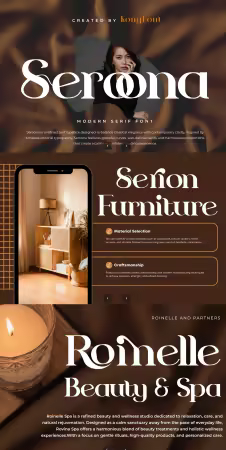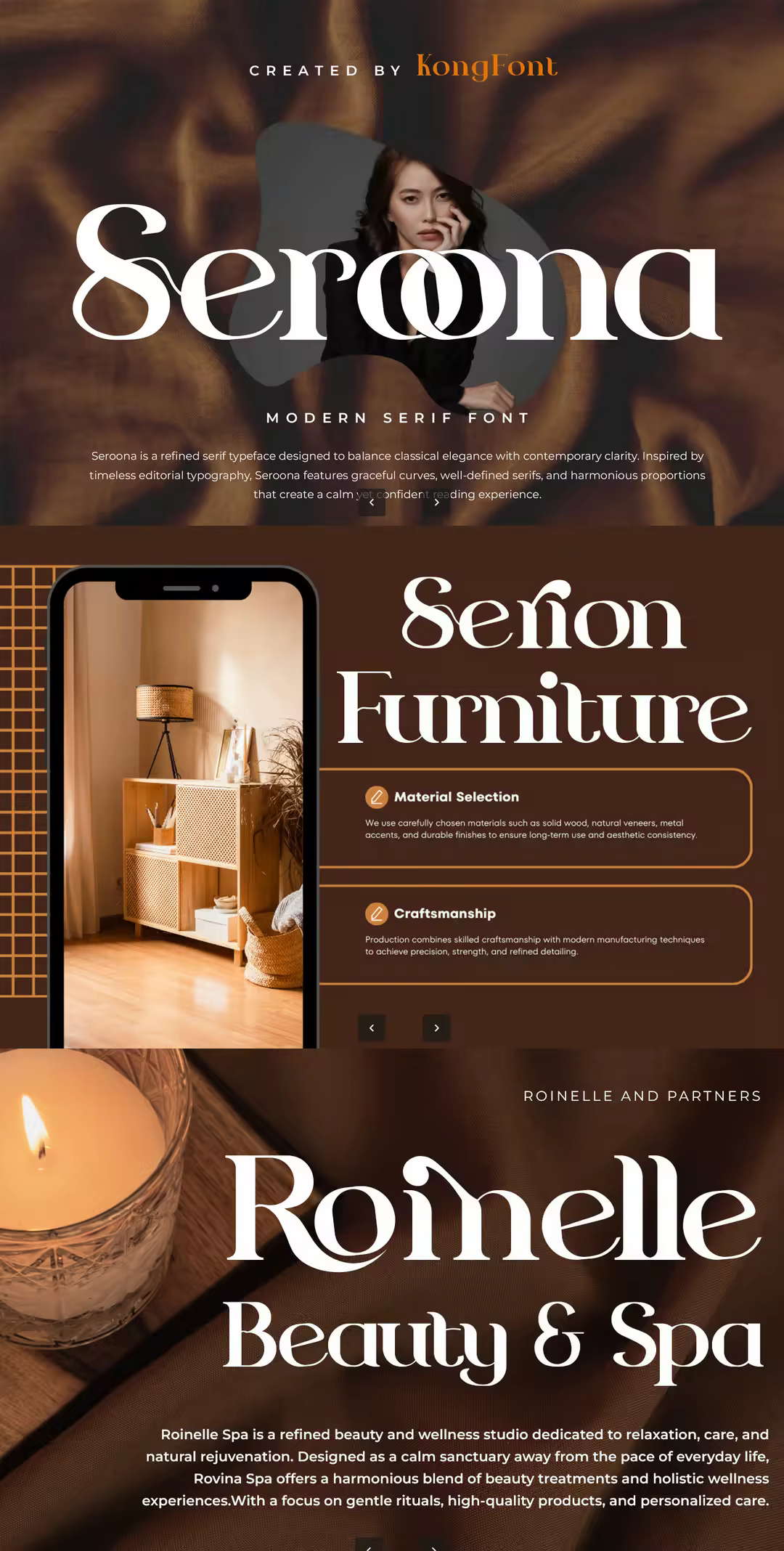
Seroona - Modern Serif Font
Introducing Seroona, a modern serif font designed to blend timeless beauty with a refined contemporary touch. Featuring clean serifs, smooth curves, and well balanced proportions, Seroona delivers an elegant and sophisticated typographic style suitable for both modern and classic design aesthetics.
Seroona includes uppercase and lowercase letters, numerals, punctuation, and multilingual support, ensuring flexibility for global creative projects. Whether you are crafting a luxury brand identity, an elegant magazine spread, or a refined digital design, Seroona enhances your work with its calm confidence and contemporary elegance.